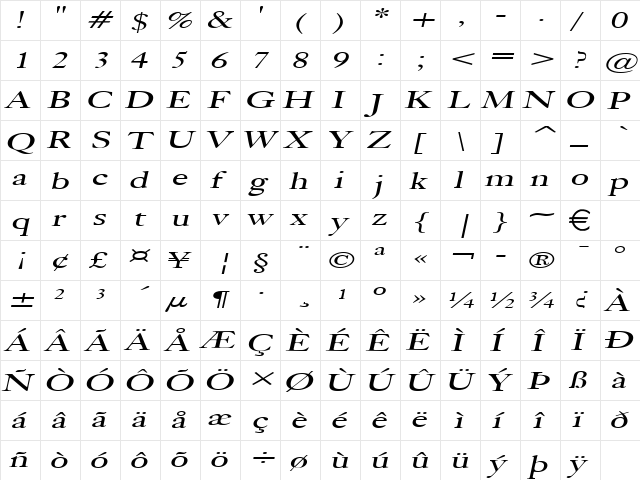
BlissExtended Italic
Design Context for BlissExtended Typeface
BlissExtended is a composed and adaptable typeface that performs quietly and consistently across a wide range of design contexts. The dynamic lean of this cut emphasises speed and emphasis in any layout.
Pro Tip: Use BlissExtended for emphasis, pull quotes, and subheadings where its slanted energy can add rhythm to the layout.